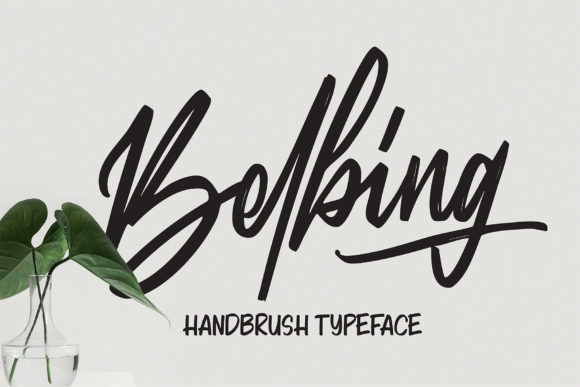
Discover the Charm of Belbing Font: Elevate Your Designs with a Unique Handwritten Style
In the world of typography, fonts play a crucial role in conveying the tone and personality of a design. For designers and crafters looking to add a touch of elegance and whimsy to their projects, the Belbing font is an excellent choice. This unique and charming handwritten font is designed to capture the hearts of creatives, offering a perfect blend of classic calligraphic influences and modern freshness.
The Story Behind Belbing Font
Belbing is more than just a font; it’s a design element that can transform your projects into something truly special. Its creation was inspired by the need for a typeface that combines sophistication with a playful, approachable feel. The result is a font that feels both luxurious and relatable, making it versatile for various design applications.
Key Features of Belbing Font
- Unique and Whimsical: Belbing stands out with its whimsical flair, adding a personal touch to any design.
- Handwritten Style: Its handwritten nature gives it a warm, organic feel that digital fonts often lack.
- Classy Calligraphic Influences: The font retains elegant calligraphic elements, making it suitable for projects requiring a level of sophistication.
- Modern and Fresh: Despite its classic influences, Belbing feels contemporary and can be used in a wide range of modern designs.
Why Choose Belbing Font?
For designers and crafters, the right font can make all the difference in a project’s success. Here are a few reasons why Belbing should be at the top of your list:
- Versatility: Belbing can be used for a variety of projects, from wedding invitations and branding materials to digital content and packaging.
- Emotional Connection: The whimsical and handwritten nature of Belbing helps create an emotional connection with the audience, making your designs more memorable.
- Unique Appeal: In a sea of standard fonts, Belbing offers a unique appeal that can set your designs apart from the competition.
How to Use Belbing Font in Your Projects
Incorporating Belbing into your designs is straightforward. Here are some tips to get you started:
- Pair with Complementary Fonts: For maximum effect, pair Belbing with clean, sans-serif fonts to create contrast and visual interest.
- Experiment with Sizes and Colors: Don’t be afraid to play around with different sizes and colors to find the perfect combination for your design.
- Use for Headings and Titles: Belbing’s unique style makes it perfect for headings and titles, where you want to grab attention and convey personality.
- Add Personal Touches: Use Belbing to add personal touches to your designs, such as in quotes, testimonials, or any element you want to highlight.
Belbing font offers a unique opportunity for designers and crafters to elevate their projects with a touch of whimsy and elegance. Its blend of classic calligraphic influences and modern freshness makes it a versatile and appealing choice for a wide range of design applications. Whether you’re working on a branding project, creating digital content, or crafting beautiful invitations, Belbing is sure to bring your designs to the highest levels. Fall in love with Belbing and discover the difference it can make in your creative work.
Embrace the charm of Belbing font today and transform your designs with its unique, handwritten style.